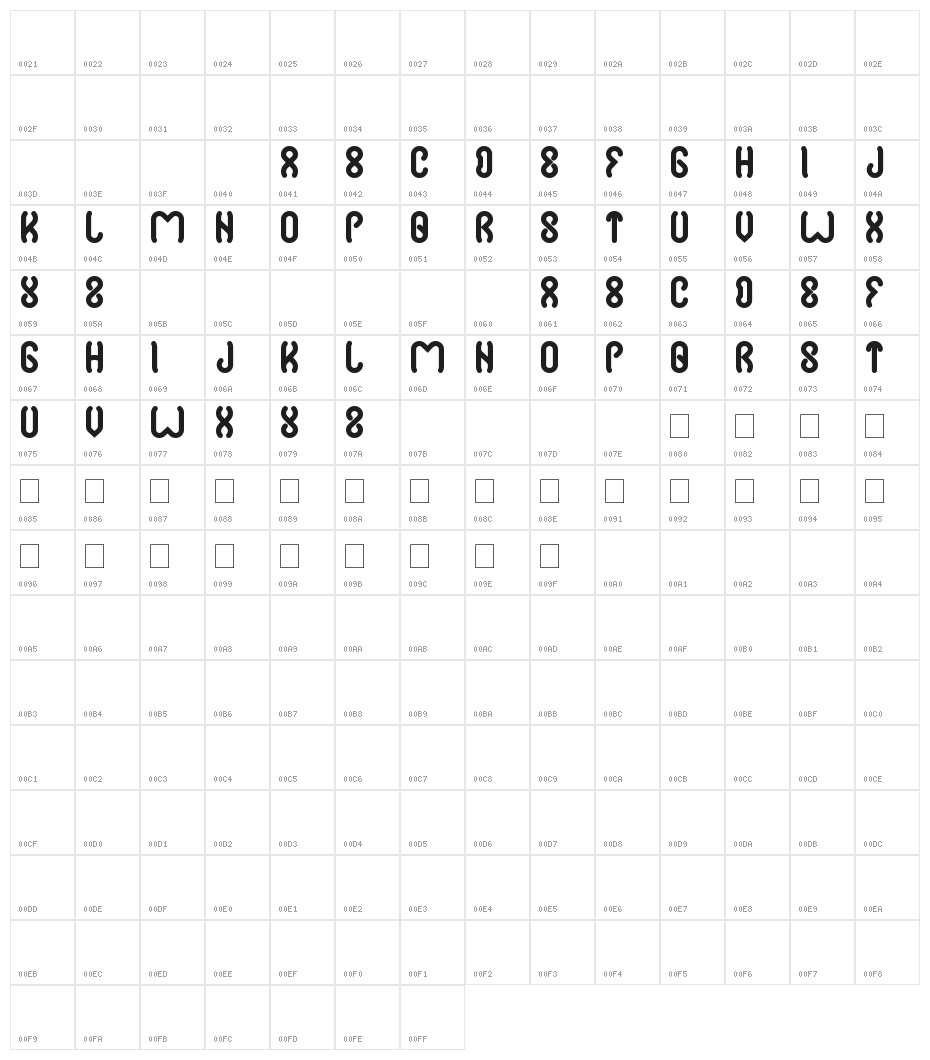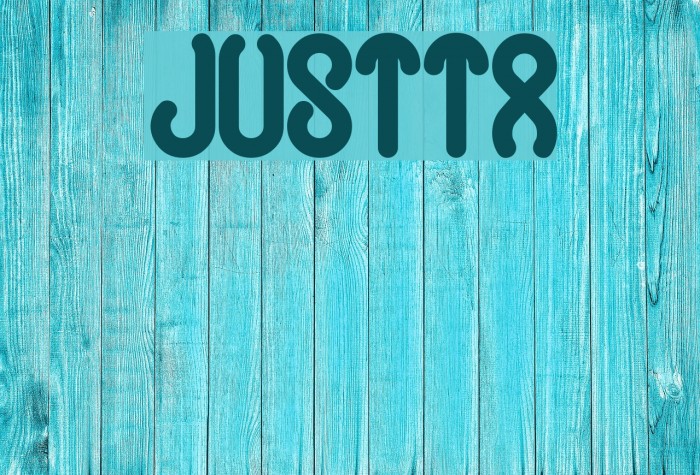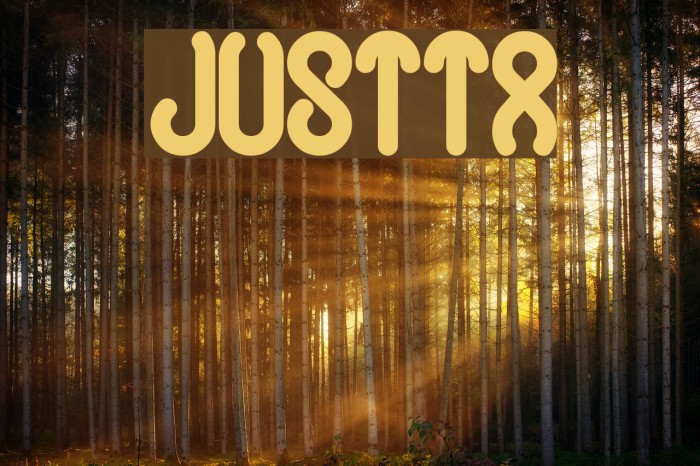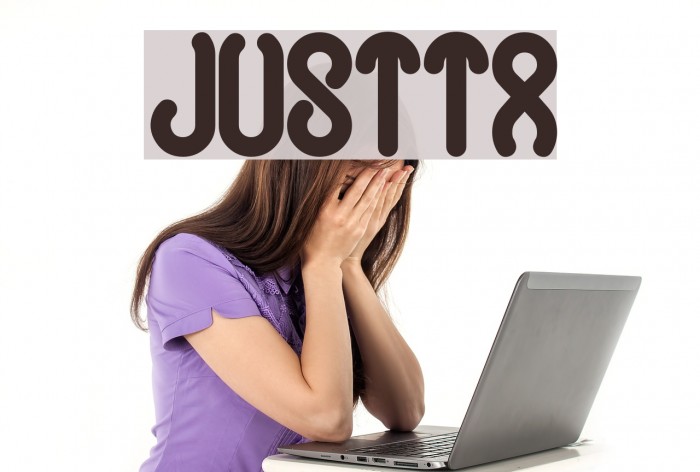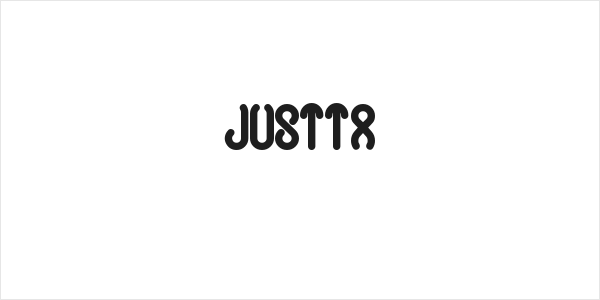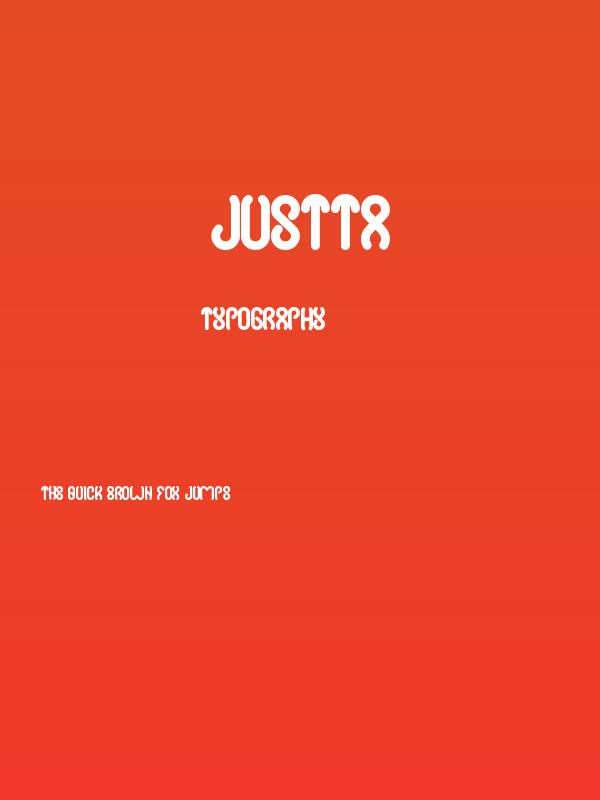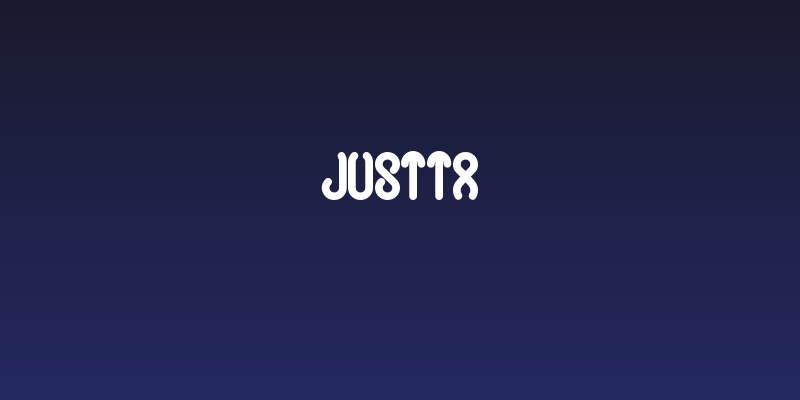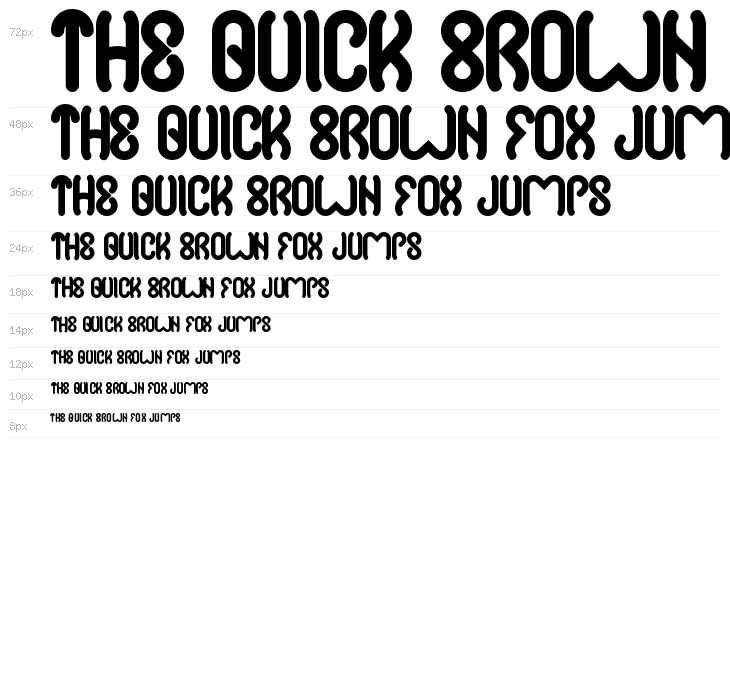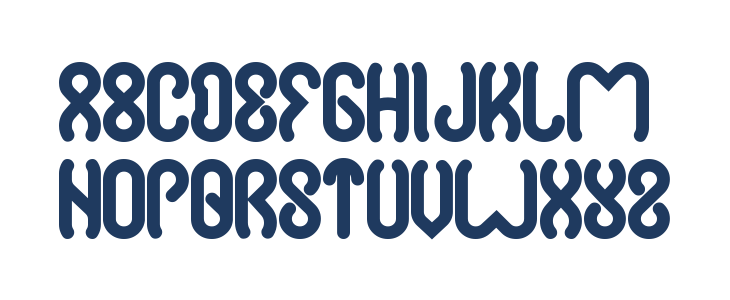
justta Font
justta Description
This font features a bold and rounded style with a unique, interconnected design. Each character is crafted with a continuous line that loops and curves, creating a sense of fluidity and movement. The uppercase letters are particularly striking, with their bold presence and intricate detailing. The lowercase letters maintain this cohesive style, offering a playful yet sophisticated look. The numbers and special characters are equally well-designed, ensuring consistency across all elements. This font's distinct appearance makes it ideal for creative projects that require a standout typeface.
| Proposed Projects | Ideal for branding, posters, album covers, and any project needing a bold, artistic touch. |